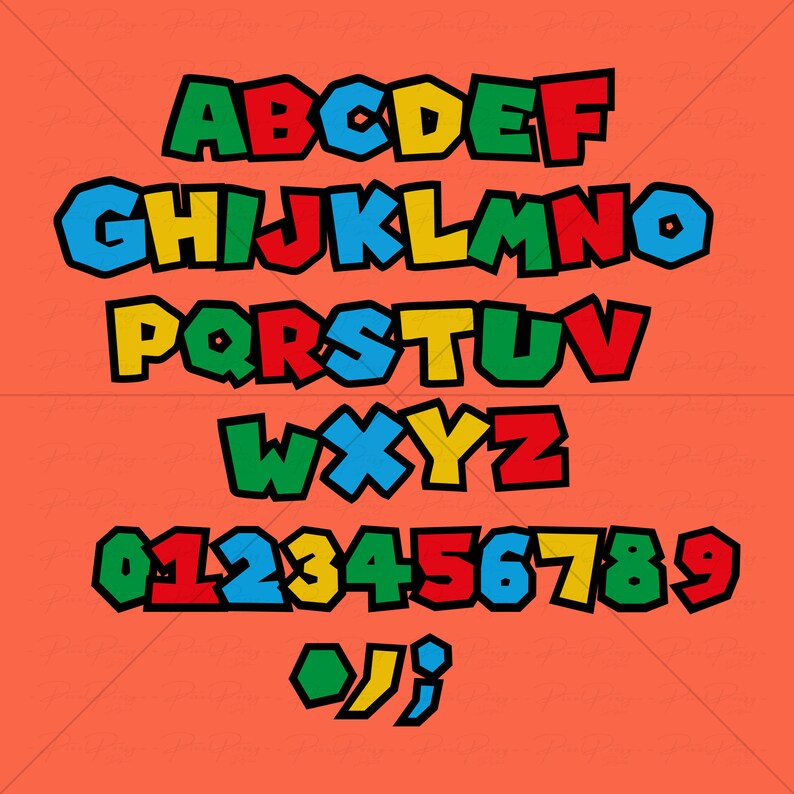
We can help you convert any text into beautiful fonts with eye catching styles with our Super Mario Font Generator. Super Mario is a series of highly popular video games by Nintendo. The games center on the adventures of Mario in the fictional Mushroom Kingdom and all its various locales.
The lettering for the Super Mario logo is very similar to a font named Super Mario 256 by fsuarez913. It is a caps only font with numerals and limited punctuation marks. Super Mario Bros.
fonts are designed to look like all the Mario video games. Fans have recreated the styles used in Mario Party, Mario World, Mario All-Stars, and all the games made for Nintendo and Super Nintendo. Use these free Super Mario themed fonts with Luigi, Princess Toadstool, and more to generate your designs, for free! Download the Super Mario 256 font for free, perfect for personal use and creative projects.
Select more font style some popular Mario-style like (Super Mario 256, Super Plumber Brothers, Mario World Font) You can customize the font and background color, size according to your needs. Transform your text into playful plumber-approved style with our free Mario font generator! Perfect for creating gaming-inspired designs that jump right off the screen. Our tool features the iconic blocky, colorful font style that has been delighting Nintendo fans since 1985.